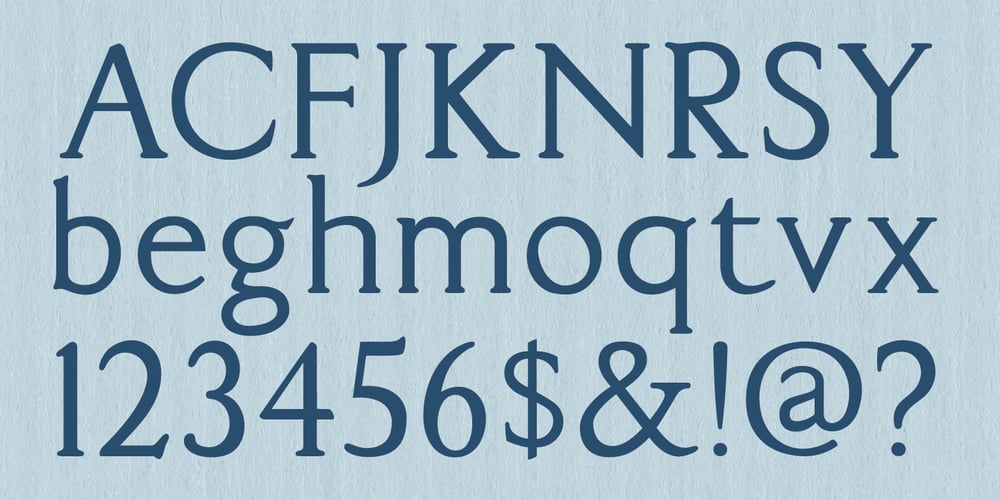
MPI Old Style Font Family was designed by published by mpressInteractive. MPI Old Style contains 1 styles and family package options. Old Style is an example of classic roman type design. It has little contrast in stroke weight, small rounded serifs, open characters, and is very easy to read. It is based on wood type of unknown origin.